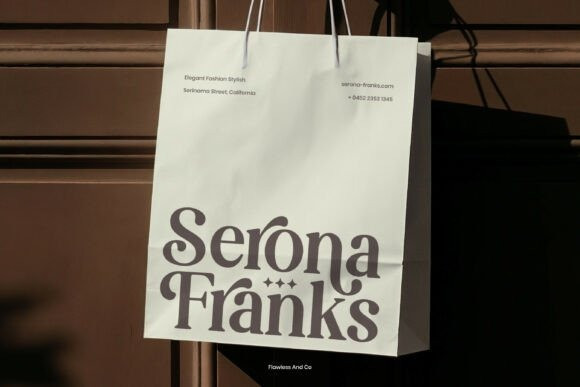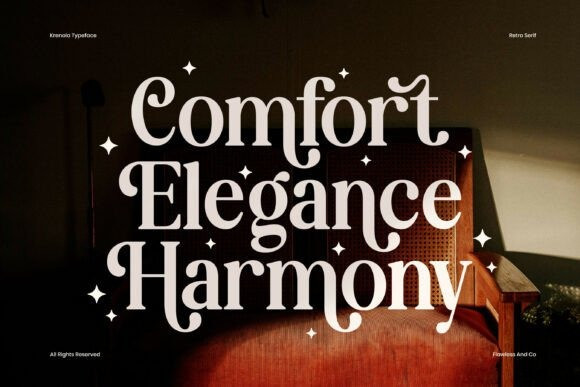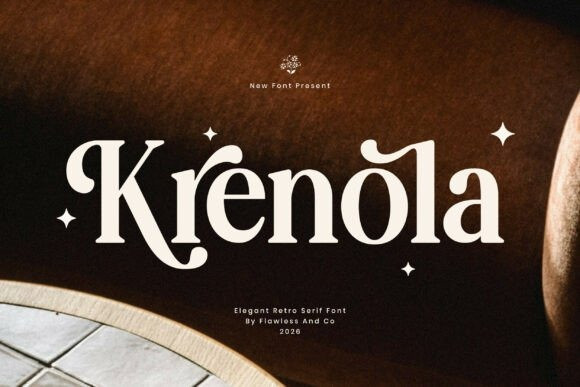
Krenola Font
Krenola Font is an elegant retro serif font that beautifully blends vintage sophistication with contemporary refinement. Inspired by timeless classic typography, Krenola features graceful serif details, balanced proportions, and distinctive retro-inspired letterforms that create a luxurious and memorable visual presence. Its elegant character makes it perfect for designs that seek both nostalgic charm and modern style.